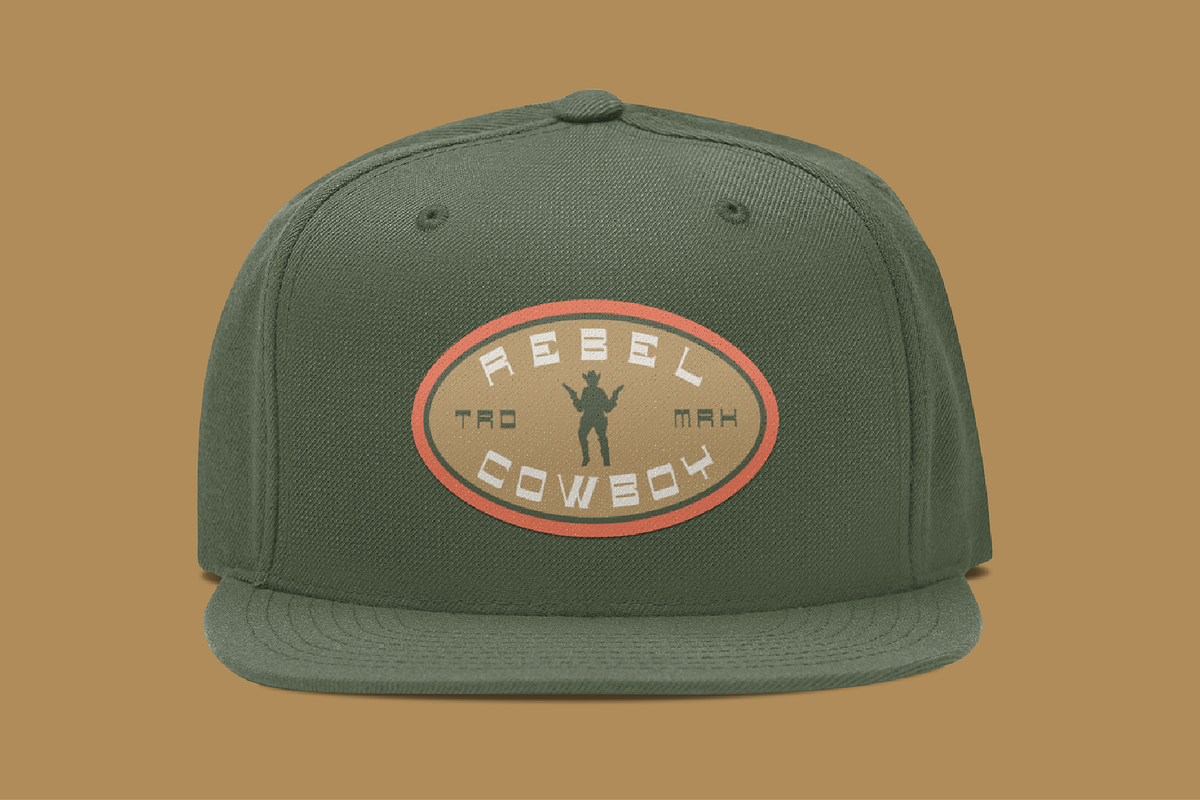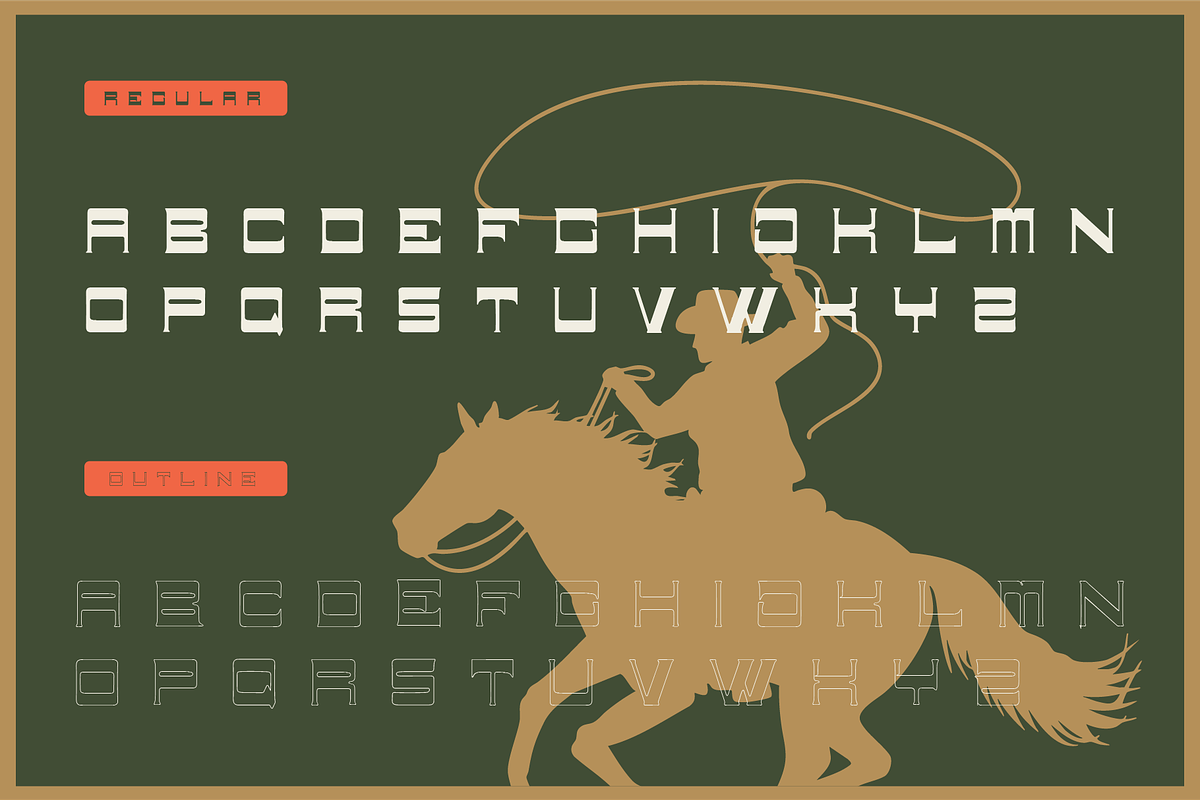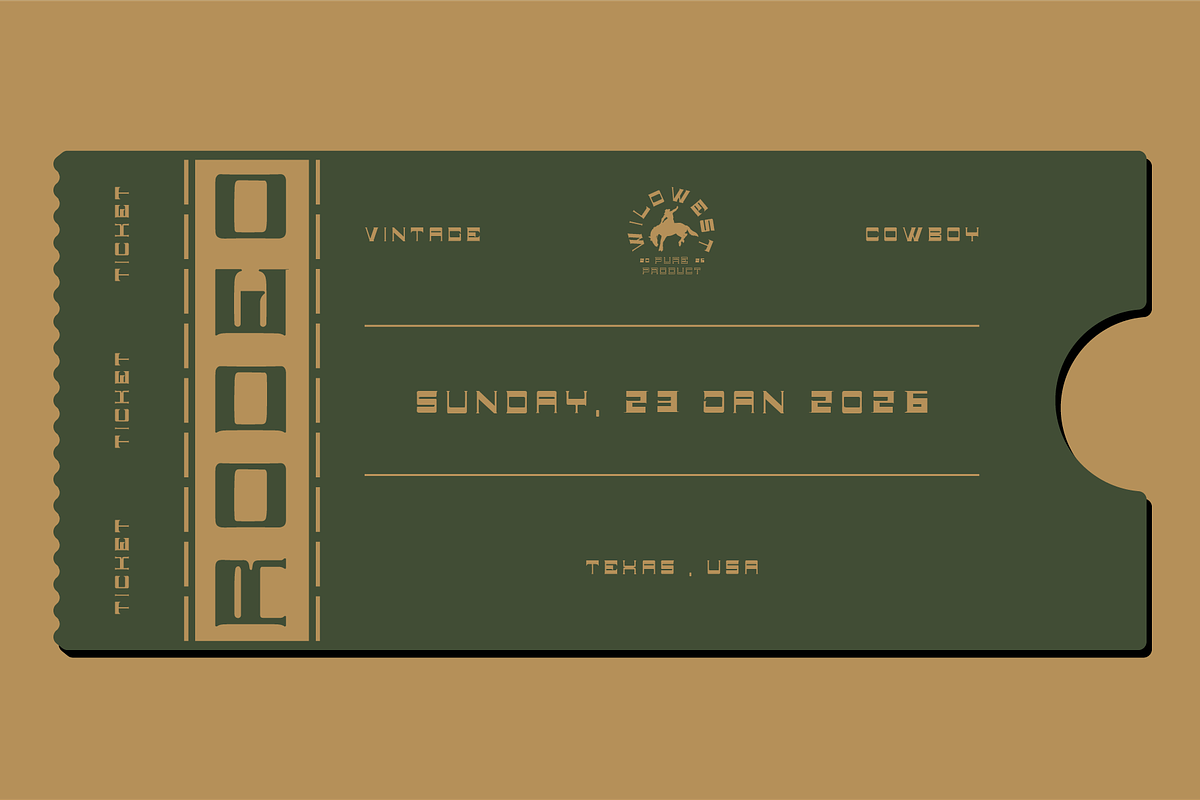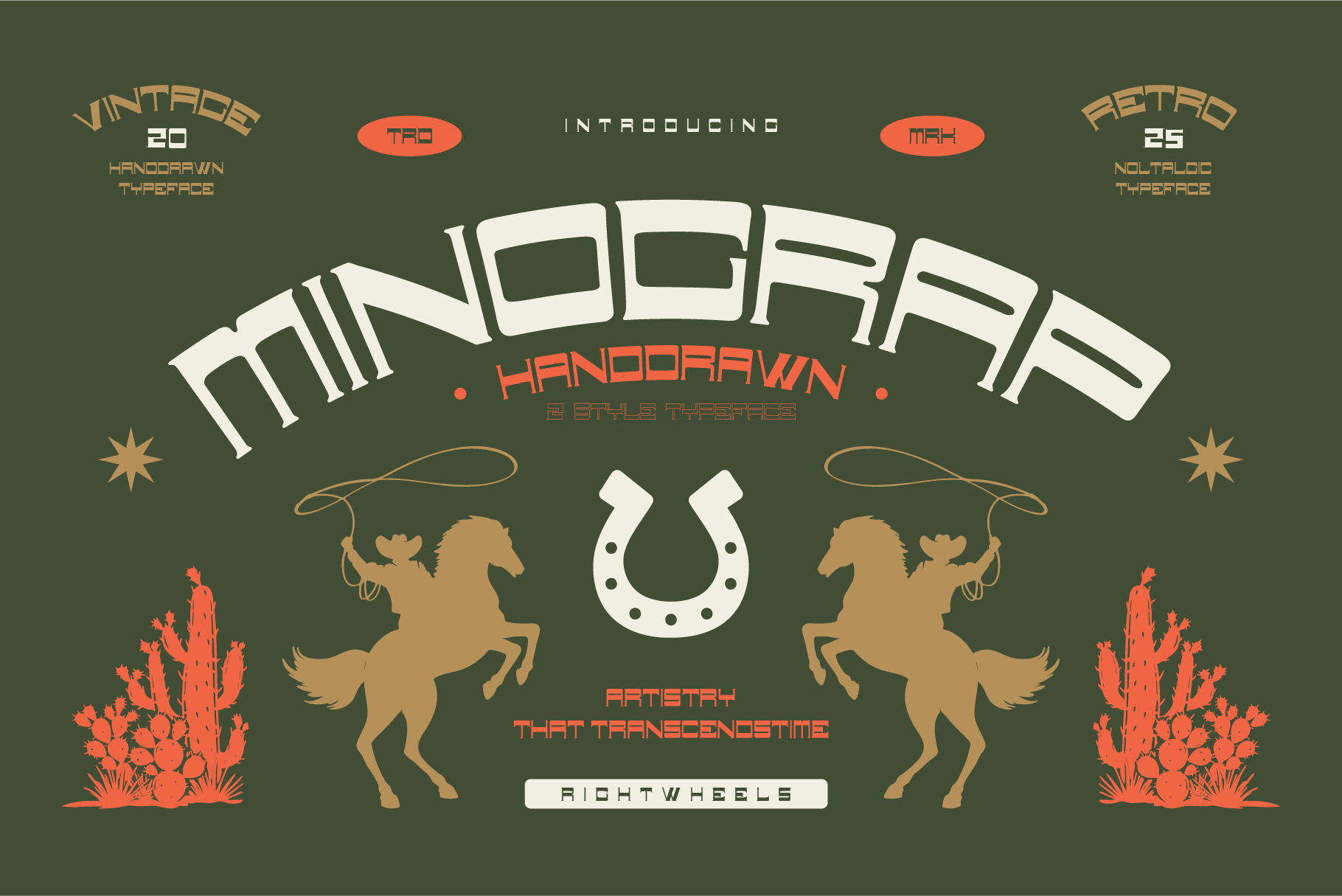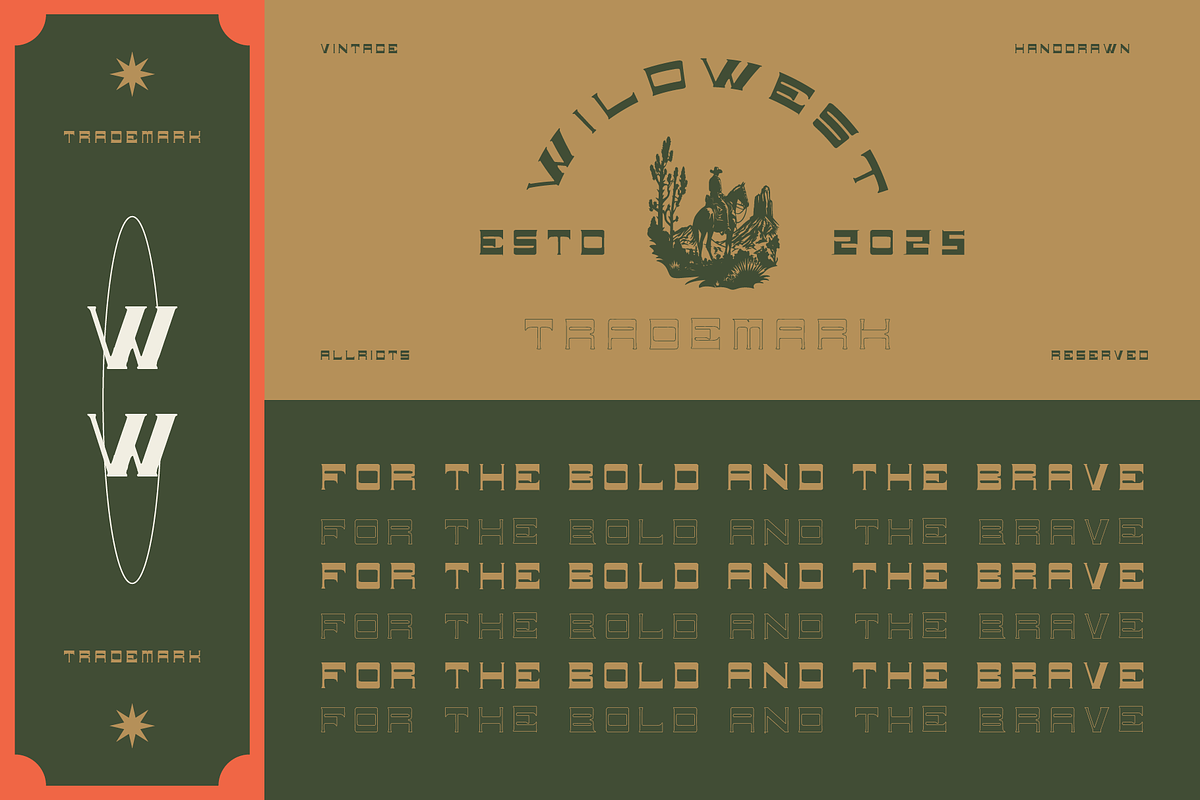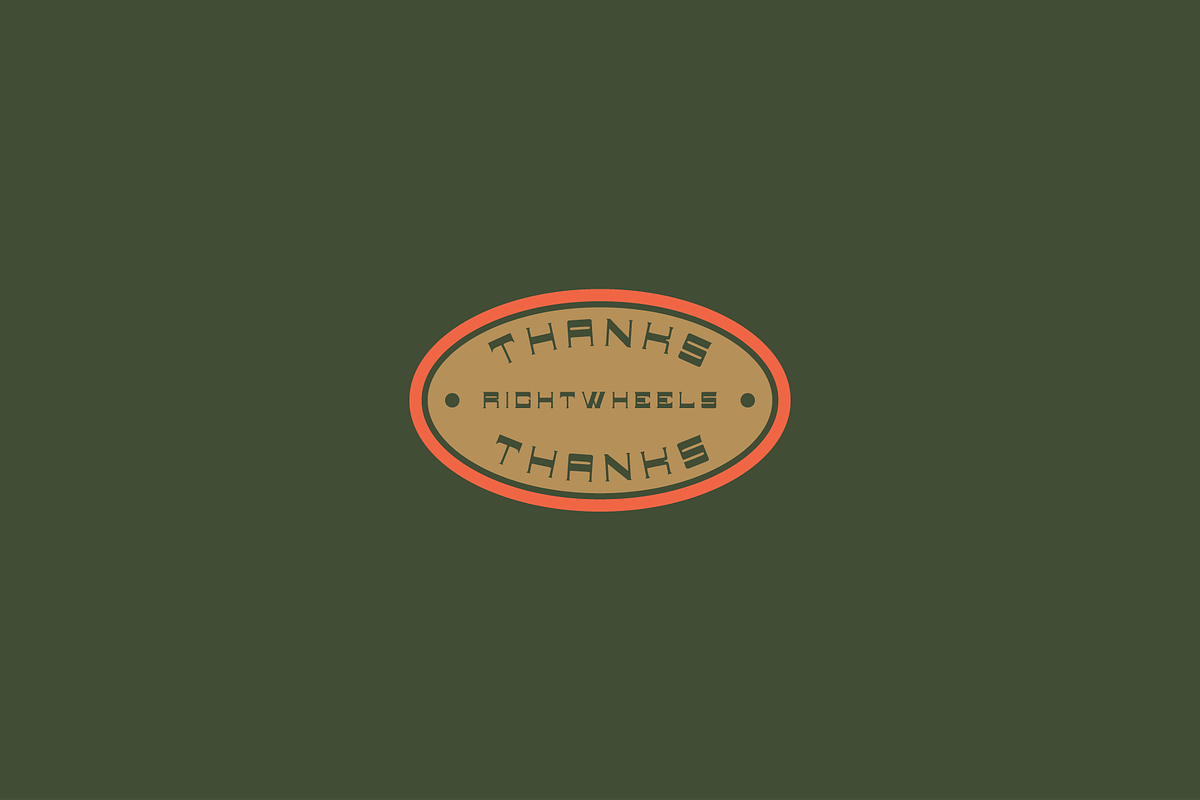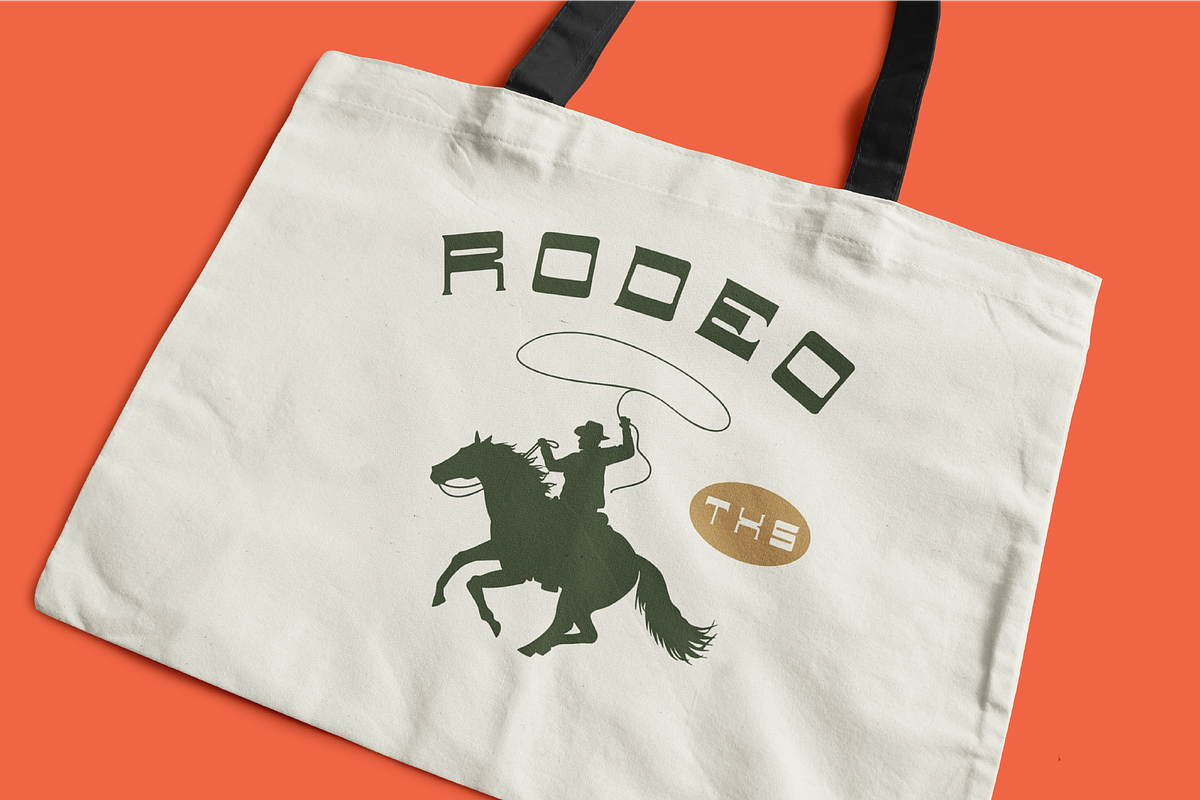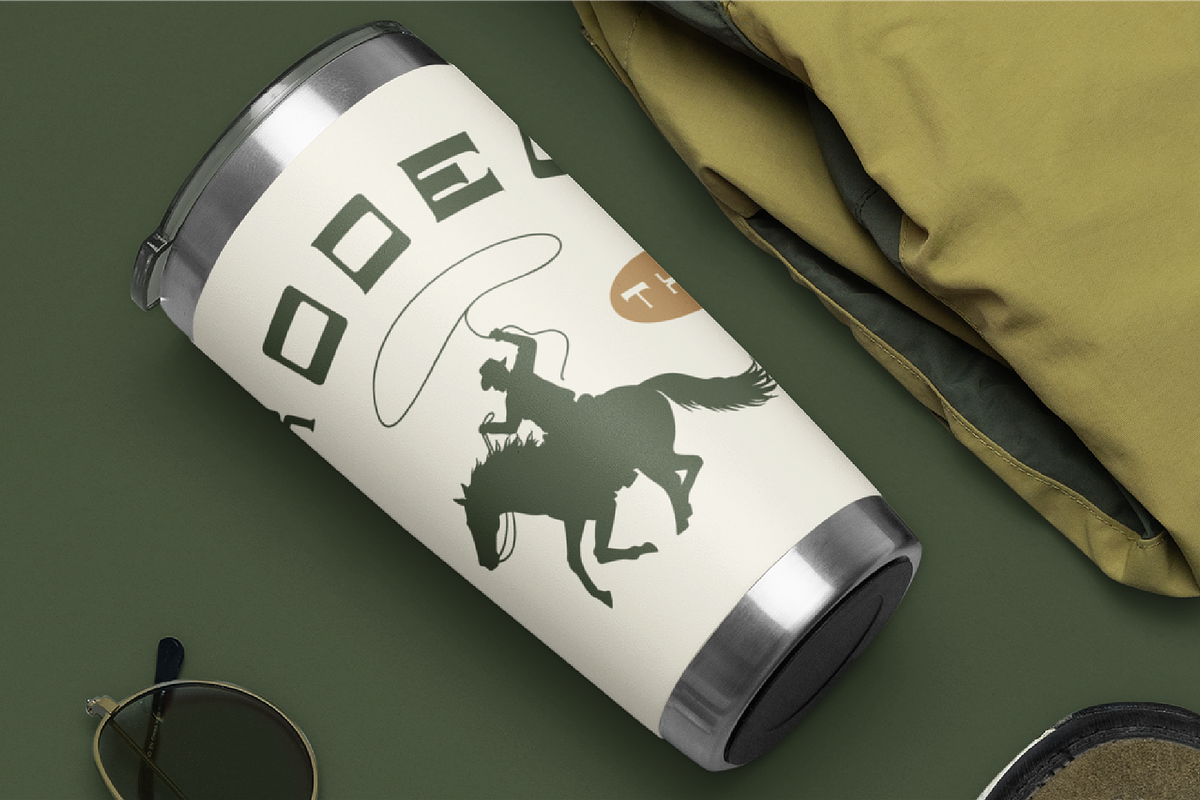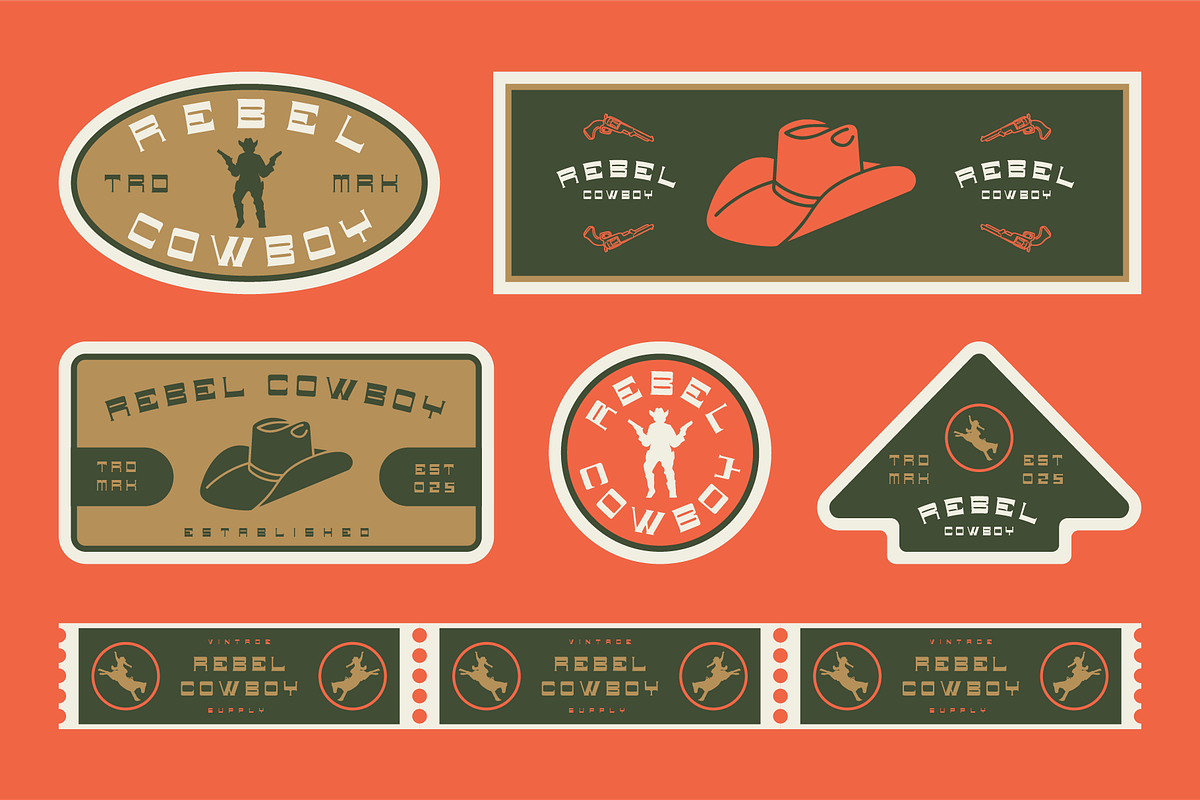
MINOGRAP - Vintage Handdrawn Font
Minograp is a retro-inspired font characterized by bold, geometric shapes and a playful, vintage vibe. With rounded or sharp edges, it draws from mid-century design and 80s aesthetics, featuring high contrast between thick and thin strokes. This style evokes nostalgia, often seen in old-school signage, posters, and logos, with some versions incorporating a distressed or weathered look for added authenticity.